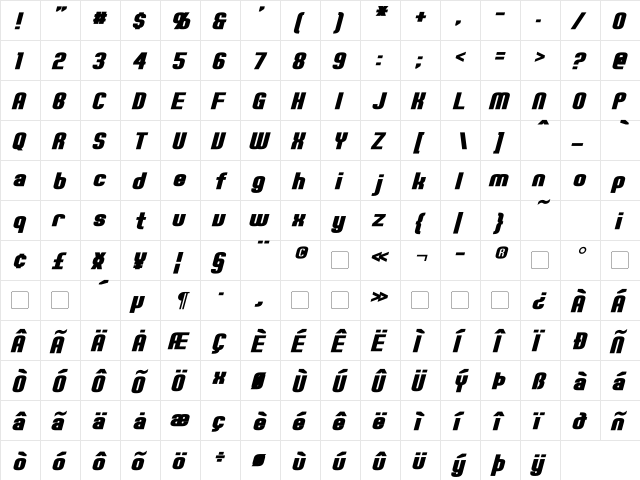
Erte Bold Italic
| Foundry | Neale Davidson |
| Designer | Neale Davidson |
Design Context for Erte Typeface
Erte is a composed and adaptable typeface that performs quietly and consistently across a wide range of design contexts. The slanted form adds forward momentum and visual energy. The heavy weight commands attention and anchors typographic hierarchies.
Pro Tip: Use Erte for emphasis, pull quotes, and subheadings where its slanted energy can add rhythm to the layout.